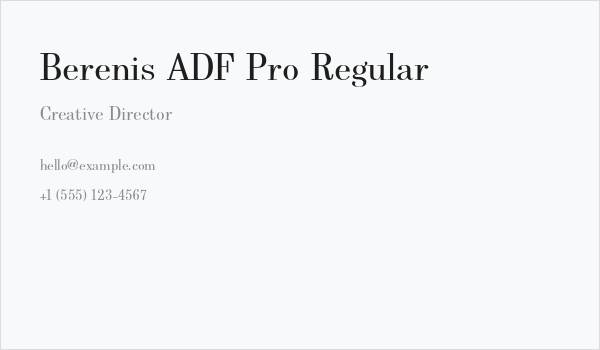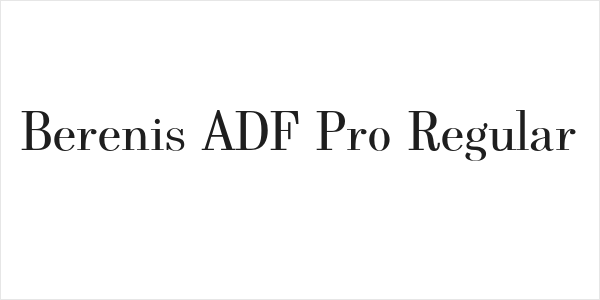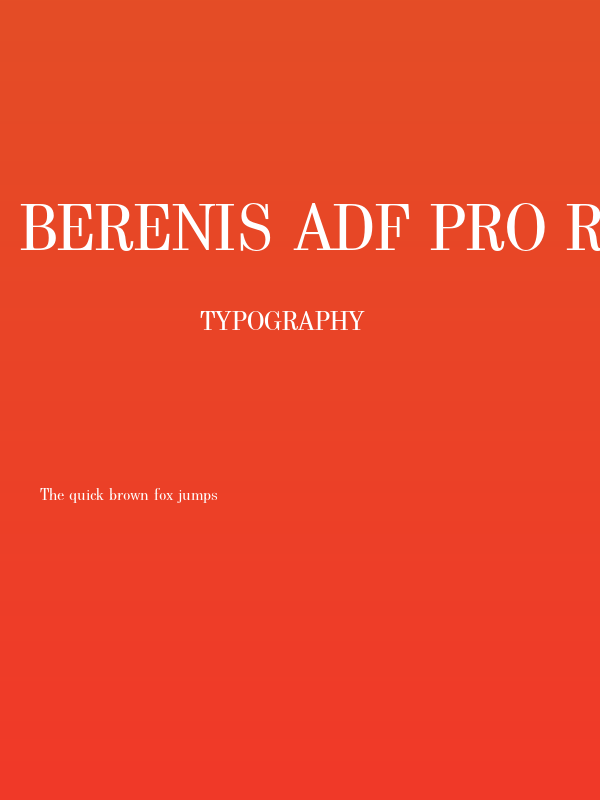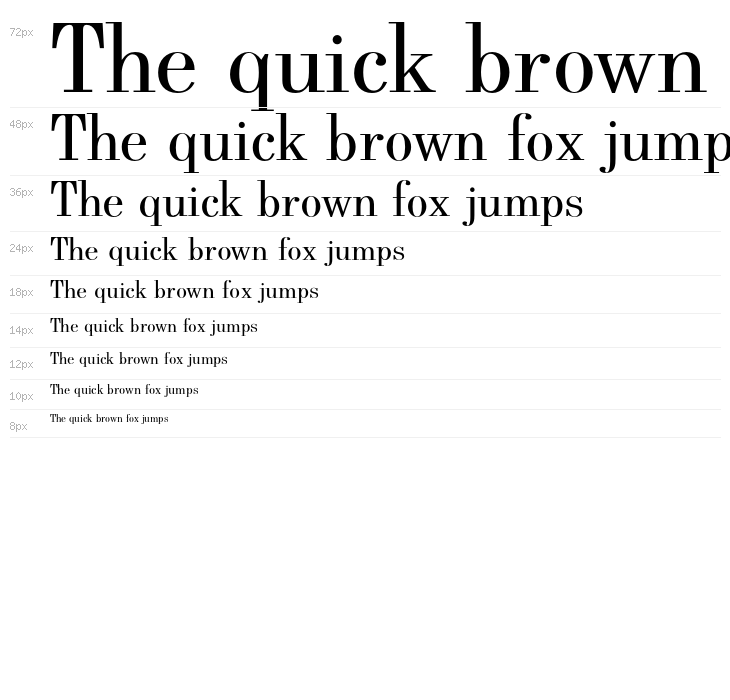
Berenis ADF Pro Regular Font
Berenis ADF Pro Regular Description
This font exudes a classic elegance with its refined serif design. The characters are well-proportioned, featuring a balanced mix of thick and thin strokes that provide a medium contrast. The uppercase letters stand tall with a stately presence, while the lowercase letters maintain a graceful flow. The numerals are clear and distinct, making them highly legible. Special characters are thoughtfully designed to complement the overall aesthetic, ensuring versatility across various applications. The font's timeless appeal makes it suitable for both traditional and modern contexts.
| Proposed Projects | Ideal for editorial design, book covers, formal invitations, and branding projects that require a touch of sophistication. |